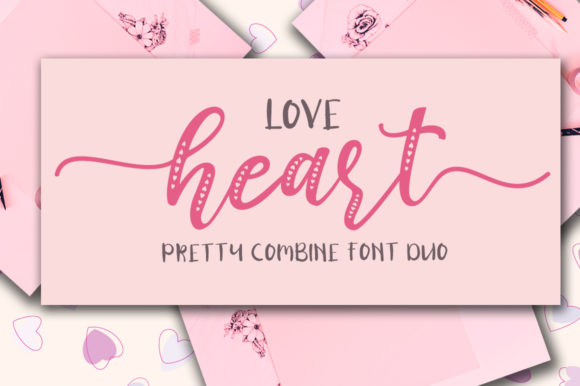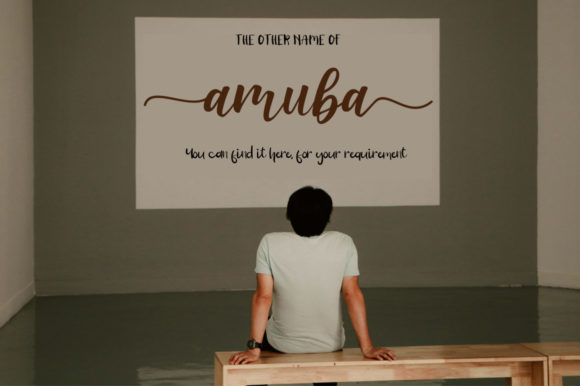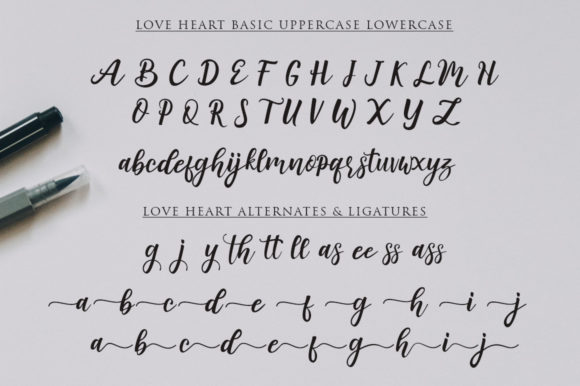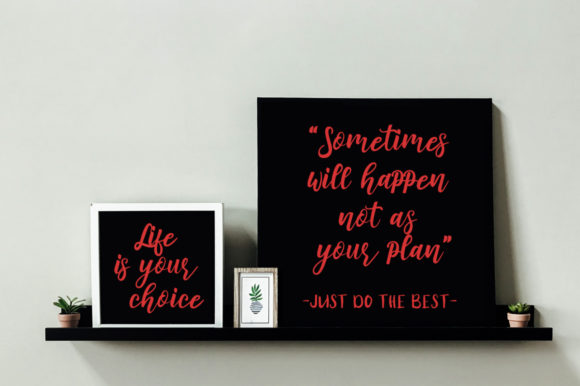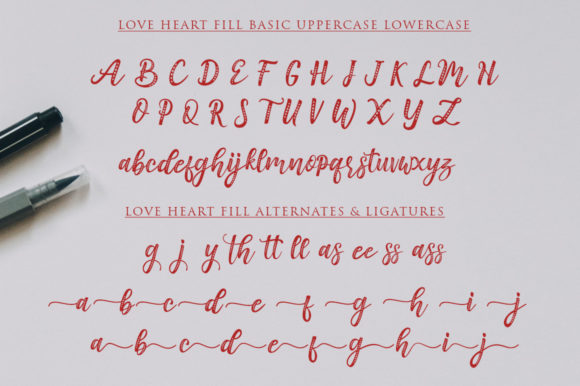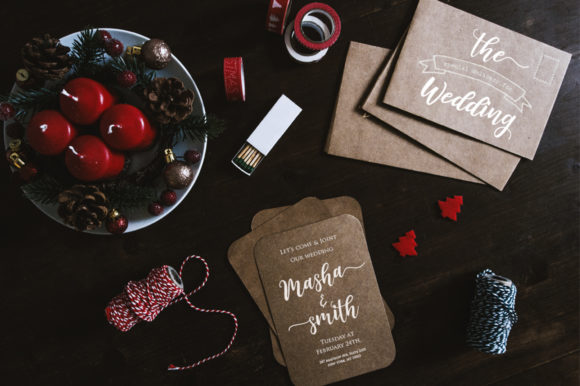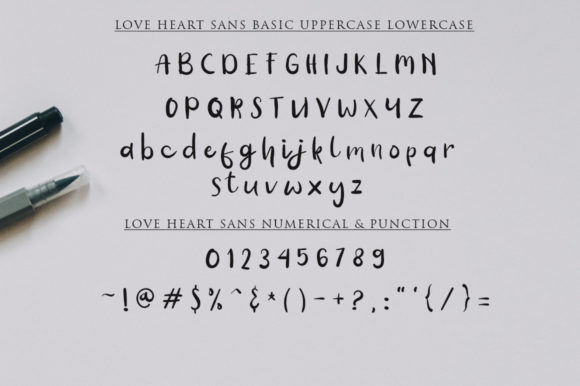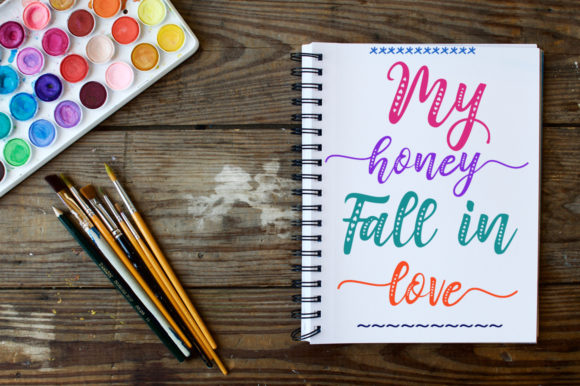
Love Heart Duo Font
About Love Heart Duo Font
The Love Heart is a hand lettered script that is perfect for greeting cards, branding, stationery designs, social media, packaging, magazine layouts, prints, logos and more!
It has a variety of unique, coded features to create compelling, handmade outcomes.